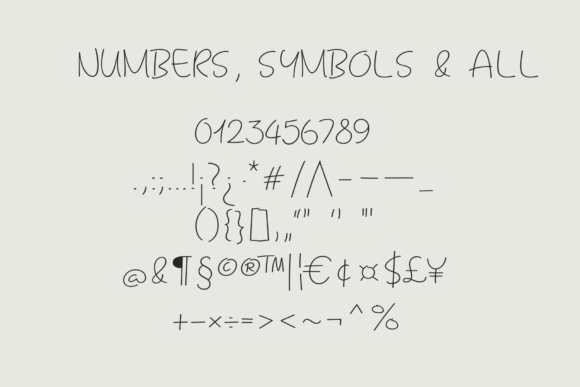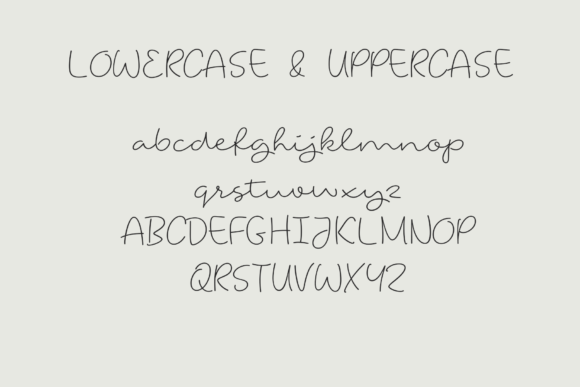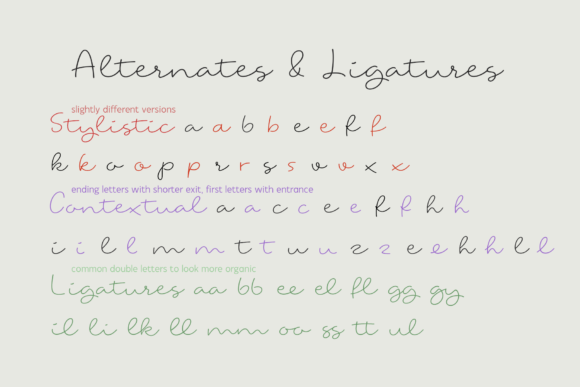
Introduction to Long Story Short Font Font
Fonts play a crucial role in design, and the Long Story Short Font font is a typeface that brings both character and versatility to any project. Whether you’re working on a branding project, a website, or a print design, the Long Story Short Font font offers a unique style that can elevate your work.
| π Font Name | Long Story Short Font |
| π€ Author | Roland HΓΌse Design |
Long Story Short.
A casual, friendly handwritten font with charming characters that look so natural and simple It is perfect for kids-themed projects, postcards, prints, embroidery, and web designs.
Key Features of Long Story Short Font Font
Why Choose Long Story Short Font Font?
The Long Story Short Font font is more than just a typeface β it’s a design tool that helps you communicate your message with style and clarity. Its unique character set and versatile design make it suitable for a wide range of applications, from elegant invitations to bold headlines.
With its carefully crafted letterforms and balanced proportions, the Long Story Short Font font ensures readability and visual appeal across all mediums.
What makes Long Story Short Font font special?
The Long Story Short Font font stands out with its unique design, exceptional readability, and versatility across various design applications.